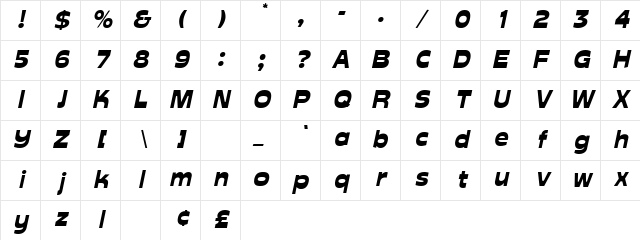
Roister Oblique
Design Context for Roister
Roister is a composed and adaptable typeface that performs quietly and consistently across a wide range of design contexts. The slanted form adds forward momentum and visual energy.
Pro Tip: Use Roister for emphasis, pull quotes, and subheadings where its slanted energy can add rhythm to the layout.